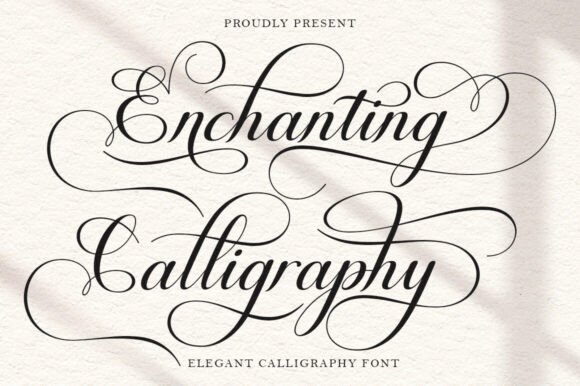
Unlock the Magic of Enchanting Calligraphy Font
As a designer, there’s nothing quite like the thrill of bringing a project to life. Whether it’s a wedding invitation, a branding campaign, or a book cover, the right font can make all the difference. For me, it’s the moment when the perfect typeface clicks into place, and the entire design starts to feel cohesive and beautiful.
That’s exactly what Enchanting Calligraphy Font is designed to do – add a touch of elegance and sophistication to your projects. With its classic copperplate calligraphy style and modern twist, this font is perfect for designers who want to create a lasting impression. Whether you’re working on a high-end fashion campaign or a romantic wedding invitation, Enchanting Calligraphy Font is the perfect choice. Its versatility, smooth lines, and beautiful letter connections make it a valuable asset for any designer looking to elevate their work.
Key Features of Enchanting Calligraphy Font
- Character Count: The font contains over 200 unique characters, including letters, numbers, and punctuation marks, making it suitable for various design applications.
- Unique Characteristics: The Enchanting Calligraphy Font features elegant, flowing lines and subtle flourishes, giving it a distinctive and sophisticated appearance.
Designer Review: Enchanting Calligraphy Font
Overall, I found “Enchanting Calligraphy Font” to be a charming addition to any design project. ✨ Its elegant and flowing script-style letters are sure to add a touch of sophistication to your work. Here are some of its strengths:
- ✨ Beautifully crafted, with a range of flourishes and ornaments that add to its enchanting charm.
- ✨ Highly versatile, suitable for use in wedding invitations, wedding stationery, greeting cards, and other special occasion designs.
- ✨ Compatible with a wide range of fonts and styles, making it easy to integrate into existing designs.
- ⚠️ Limited language support, which may be a concern for designers working on multilingual projects.
- ⚠️ Some characters may not be available in certain font sizes or styles, which can affect overall readability.
- ⚠️ May not be suitable for use in body text or large blocks of text due to its ornate nature.
Overall, I would recommend “Enchanting Calligraphy Font” for designers looking to add a touch of elegance and sophistication to their work. While it may have some limitations, its strengths far outweigh its weaknesses, making it a valuable addition to any design toolkit.
Tips for Getting the Most Out of Enchanting Calligraphy Font
1. Experiment with different font sizes and colors to create a unique look.
2. Use Enchanting Calligraphy Font for titles, headings, and other attention-grabbing text.
3. Pair Enchanting Calligraphy Font with other fonts to create a visually appealing combination.
Common Use Cases for Enchanting Calligraphy Font
2. Event branding and marketing materials.
3. Artistic and creative projects.